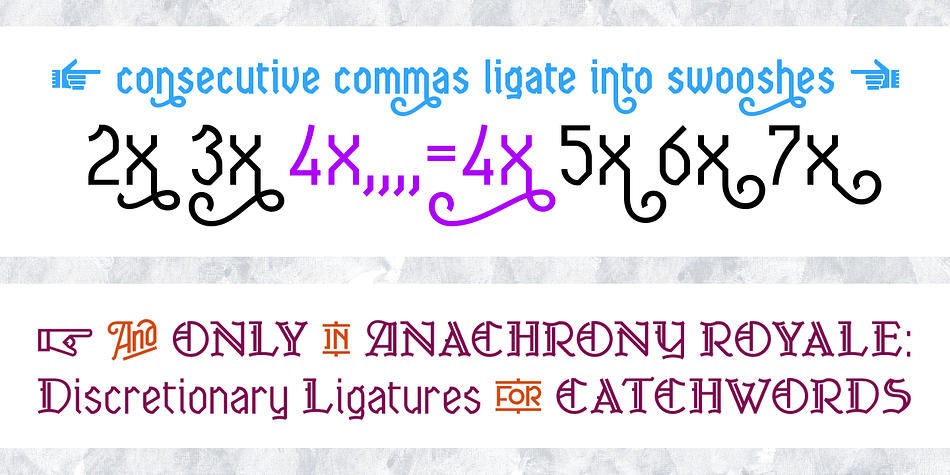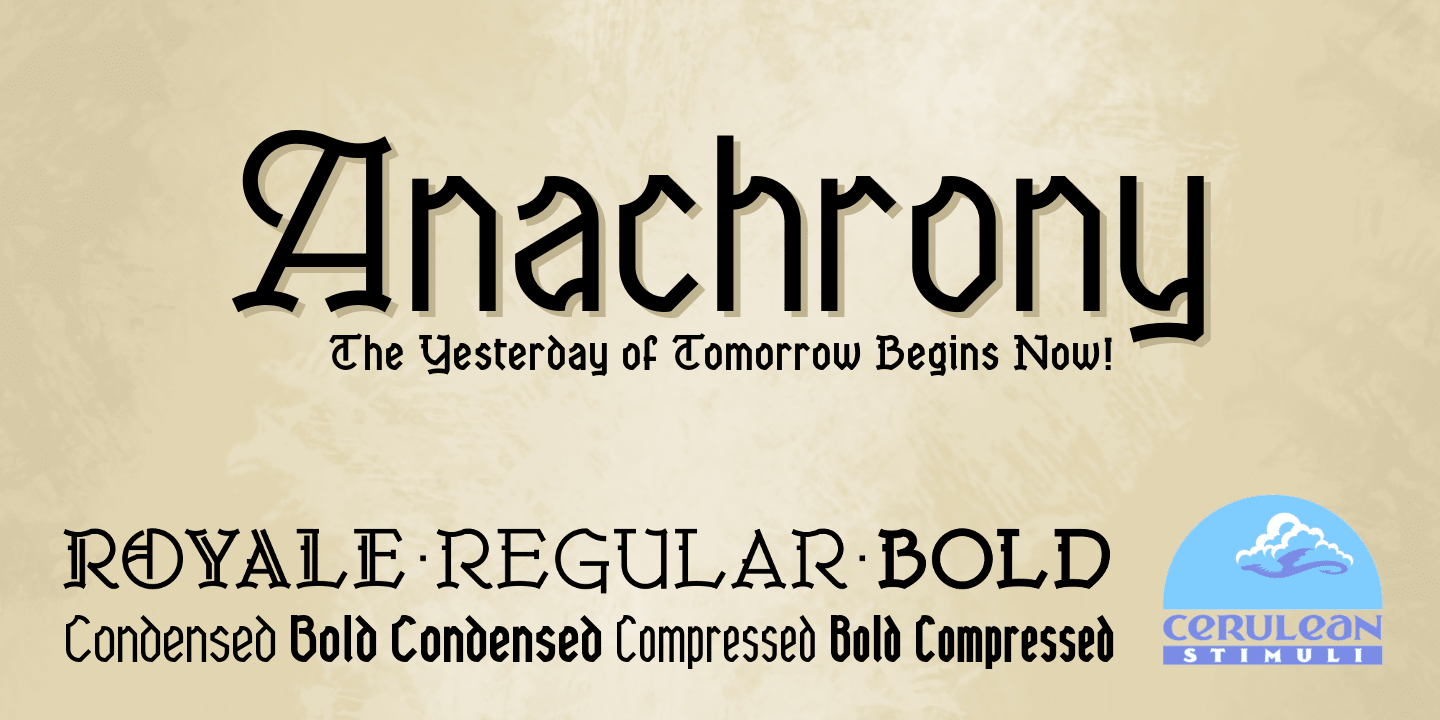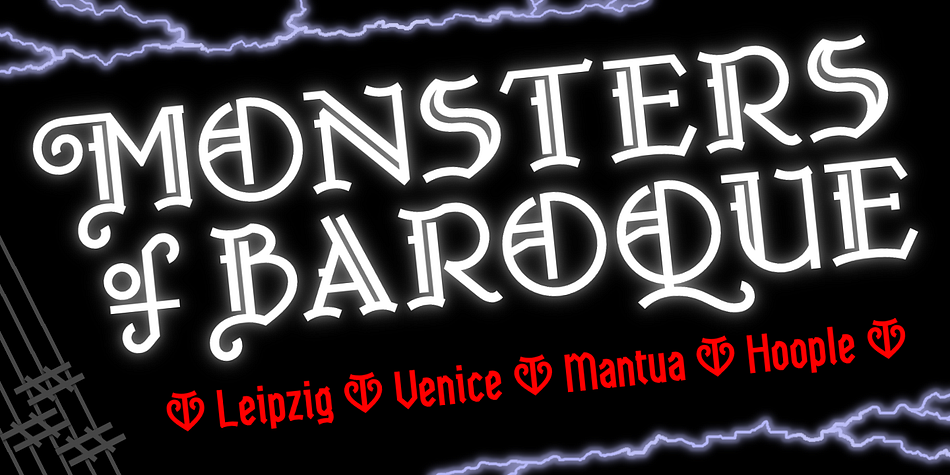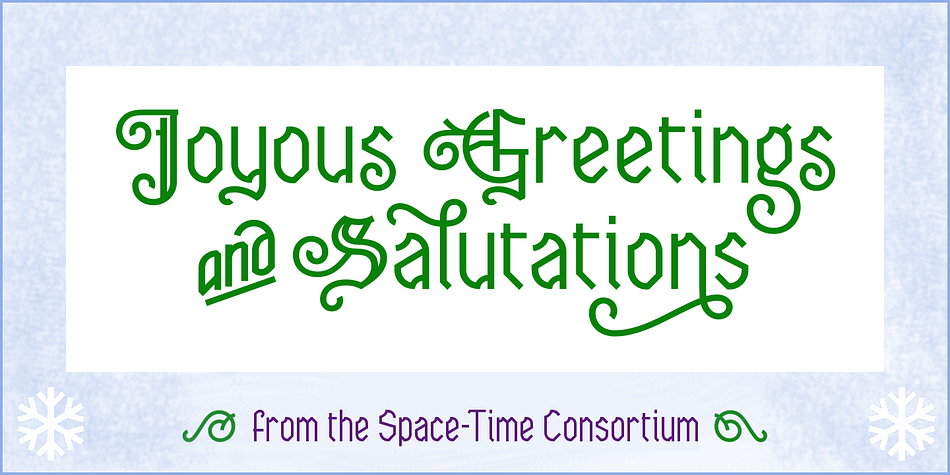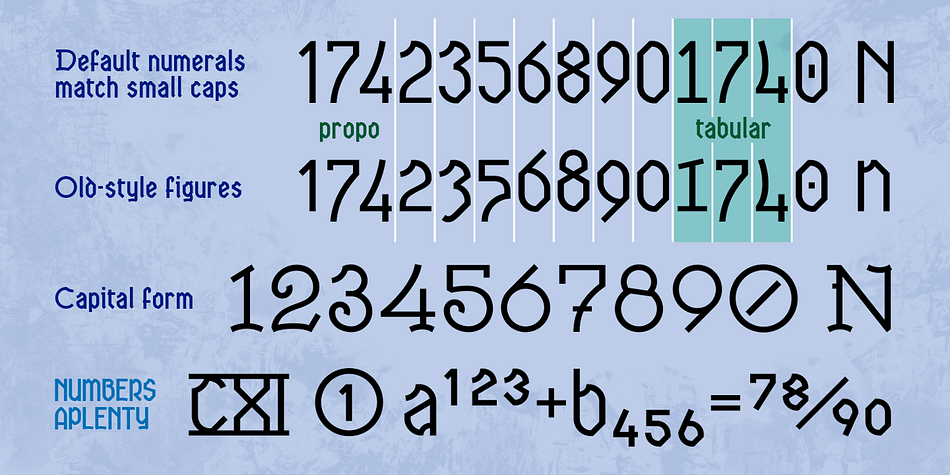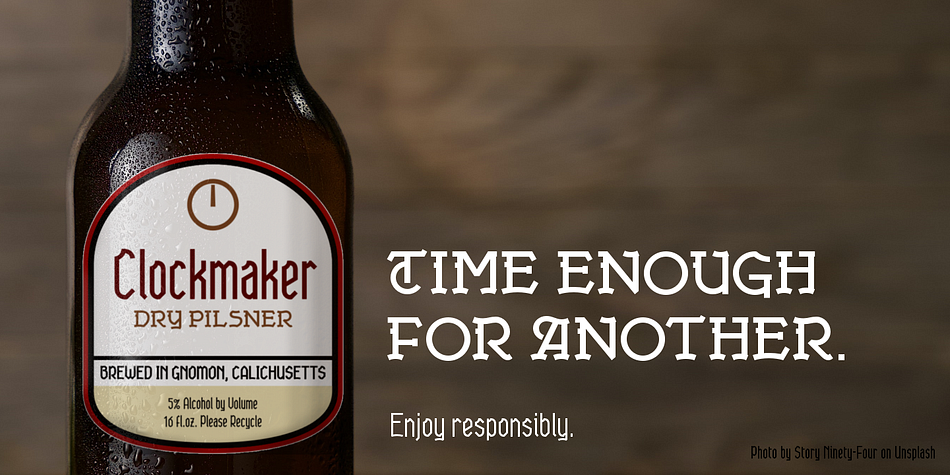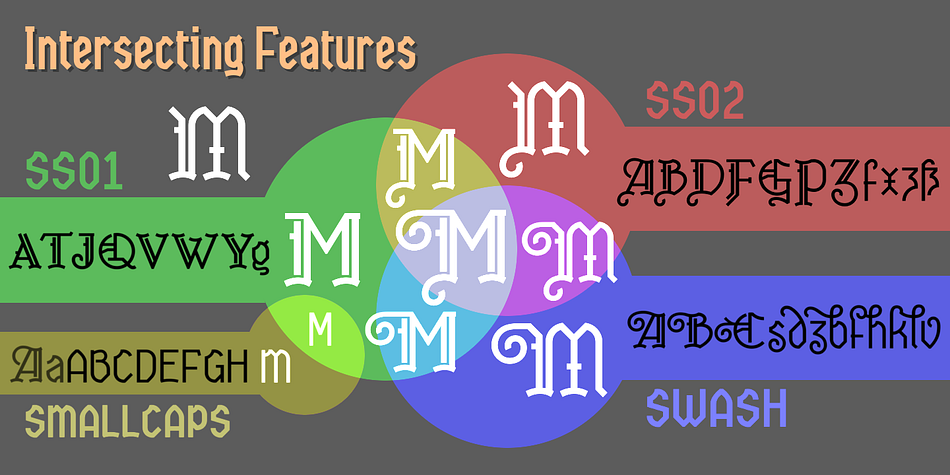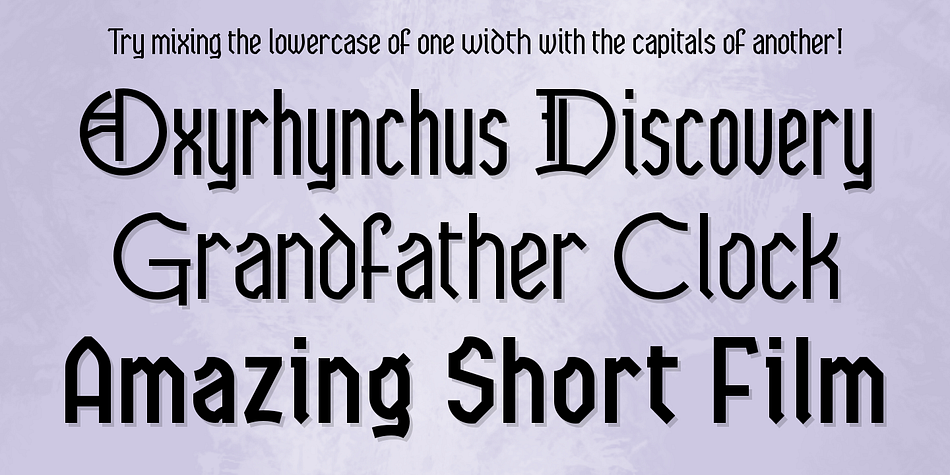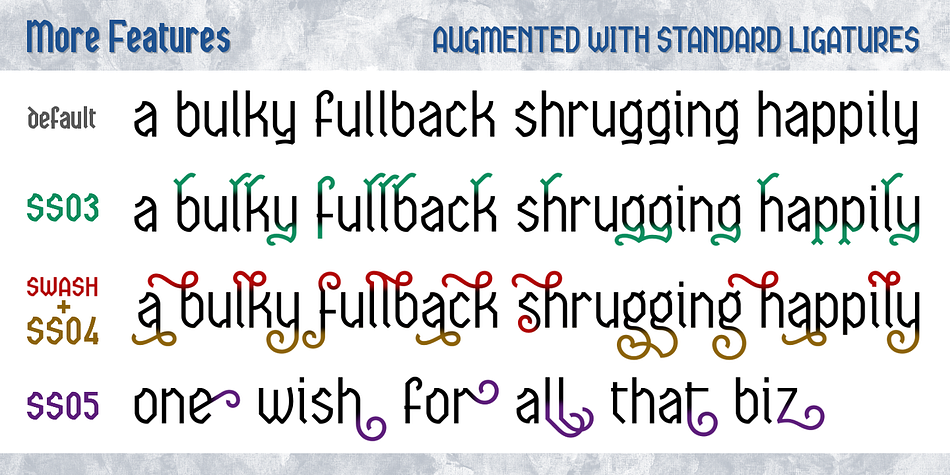
Anachrony
Designed by K. Pease, Anachrony is an art deco and blackletter font family. This typeface has seven styles and was published by Cerulean Stimuli .
Reminiscent of circuitry and wrought iron, Anachrony constructs the forms of an Old English Blackletter with the strokes of a Modern Geometric Sans, and lands in the vicinity of Art Deco. For such an unusual chimera, the Anachrony family is legible and versatile. Its glyphs cover pan-European Latin, Greek, and a wealth of symbols including arrows, zodiac, planets, chess, suits, and circled numbers. It is also packed with Opentype features:
Small Capitals: Of similar proportions to the default numerals, tall enough to be a suitable choice in place of regular capitals.
All Caps Forms: In addition to the four usual types of numerals, there are numerals and currency symbols that match the capitals.
Swash: A leading curly swash on capitals, and fancy looped ascenders in the lowercase that are handled by over a hundred standard ligatures where they would collide.
Style Set 01: Romanized forms. Especially recommended for all caps. Plainer A/M/T/V/W/Y, J/Q reined in to the baseline, and alternate g.
Style Set 02: Masthead forms. Old-fashioned capitals with descenders and that lower left dealy. Also f/x/z/ß in a more traditional fraktur mode.
Style Set 03: Mild embellishments. Tall bifurcated ascenders and descenders.
Style Set 04: Extravagant swash descenders.
Style Set 05: Final swashes for the end of a word.
Style Set 06: Converts capital letters into the corresponding connected Roman numerals. Seemed like it could be useful sometime.
Easy swooshes: Standard ligatures allow you to type two to seven commas in a row to append an assortment of sweeping or ending swashes.
Catchwords: In Anachrony Royale, turn on Discretionary Ligatures for a variety of decorative articles and prepositions.